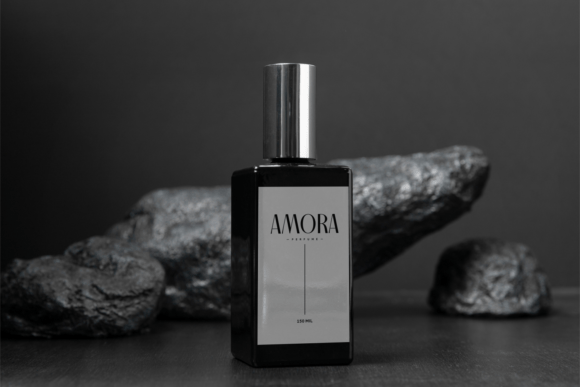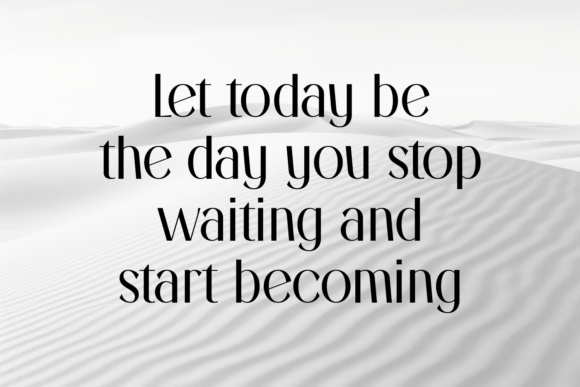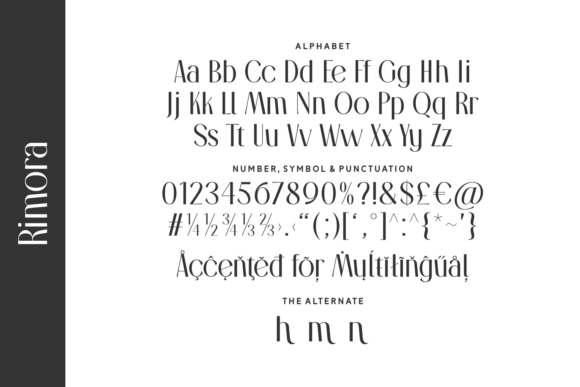
Introduction to Rimora Font
Rimora is a high-contrast modern sans serif font that blends editorial luxury with contemporary minimalism.
With its tall x-height, dramatic curves, and elegant thin-thick transitions, Rimora is perfect for magazine layouts, product packaging, logo design, and fashion branding It commands attention with grace and power, making your text feel instantly elevated.
Key Features of Rimora Font
Why Choose Rimora Font?